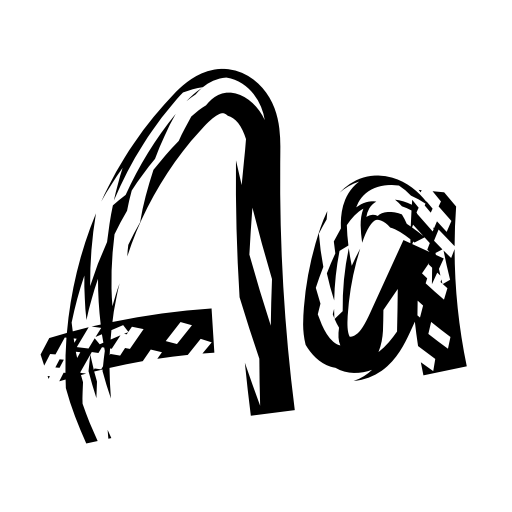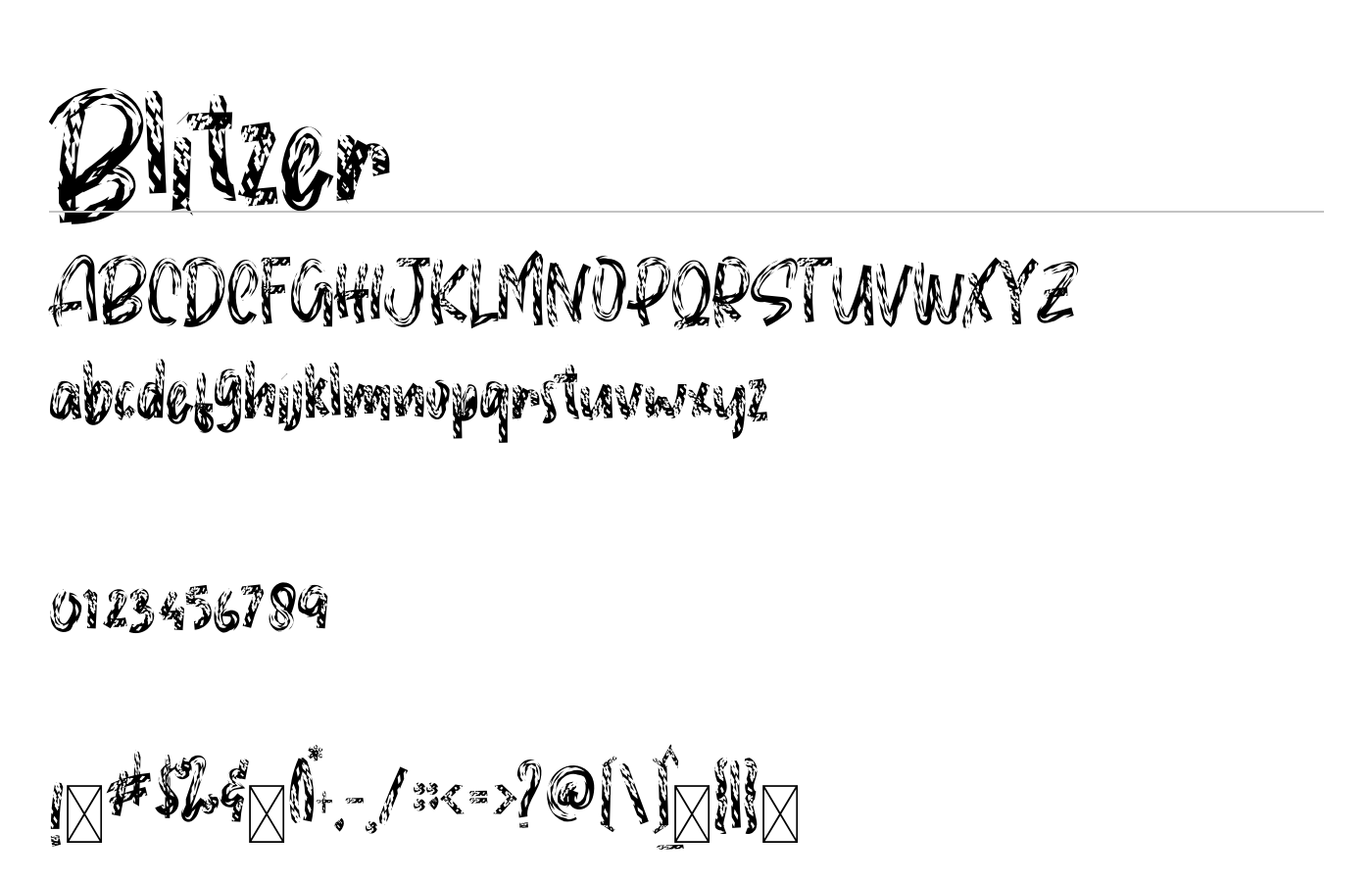
Blitzer is a playful and dynamic handwritten font with a rough, sketch-like texture that gives it a lively, artistic feel. Its irregular strokes and casual letterforms make it perfect for creative projects and informal designs, adding a distinct, energetic personality to logos, posters, and social media graphics where a bold, handcrafted look is desired.
Blitzer Font